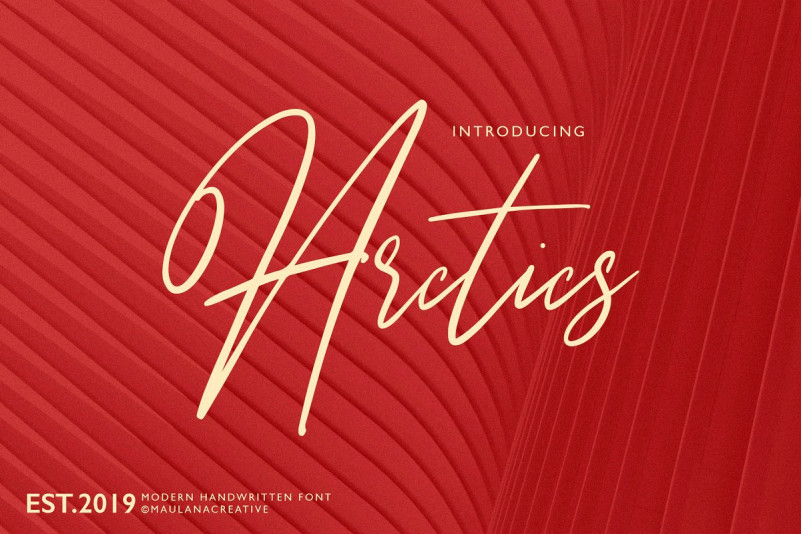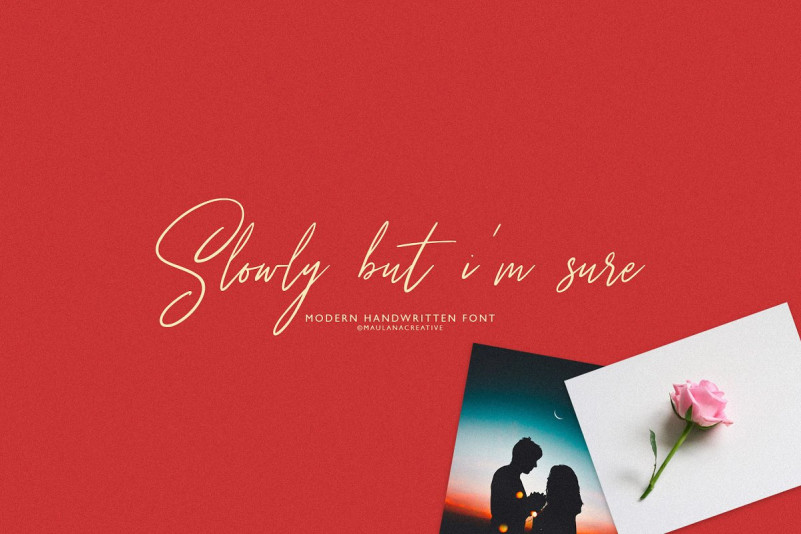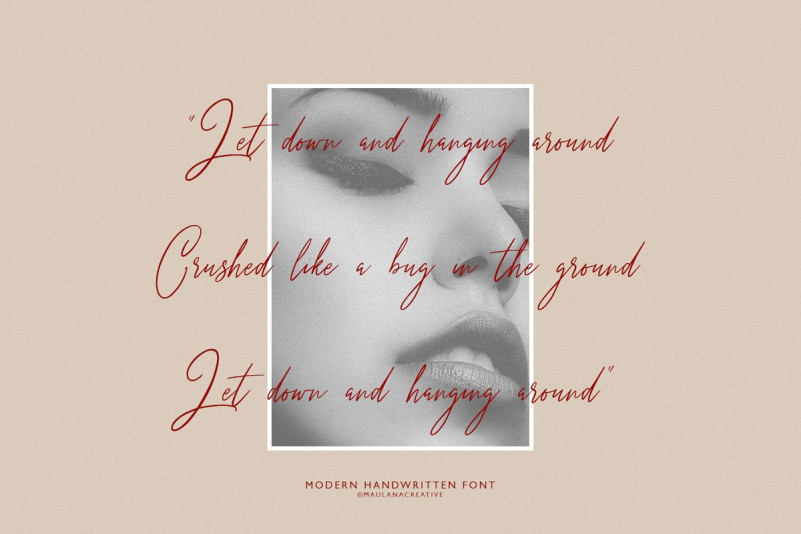
Arctics Font
Give your designs an authentic handcrafted feel. “Arctics” is perfectly suited to signature, stationery, logo, typography quotes, magazine or book cover, website header, clothing, branding, packaging design and more. Included Swash & Ligatures.